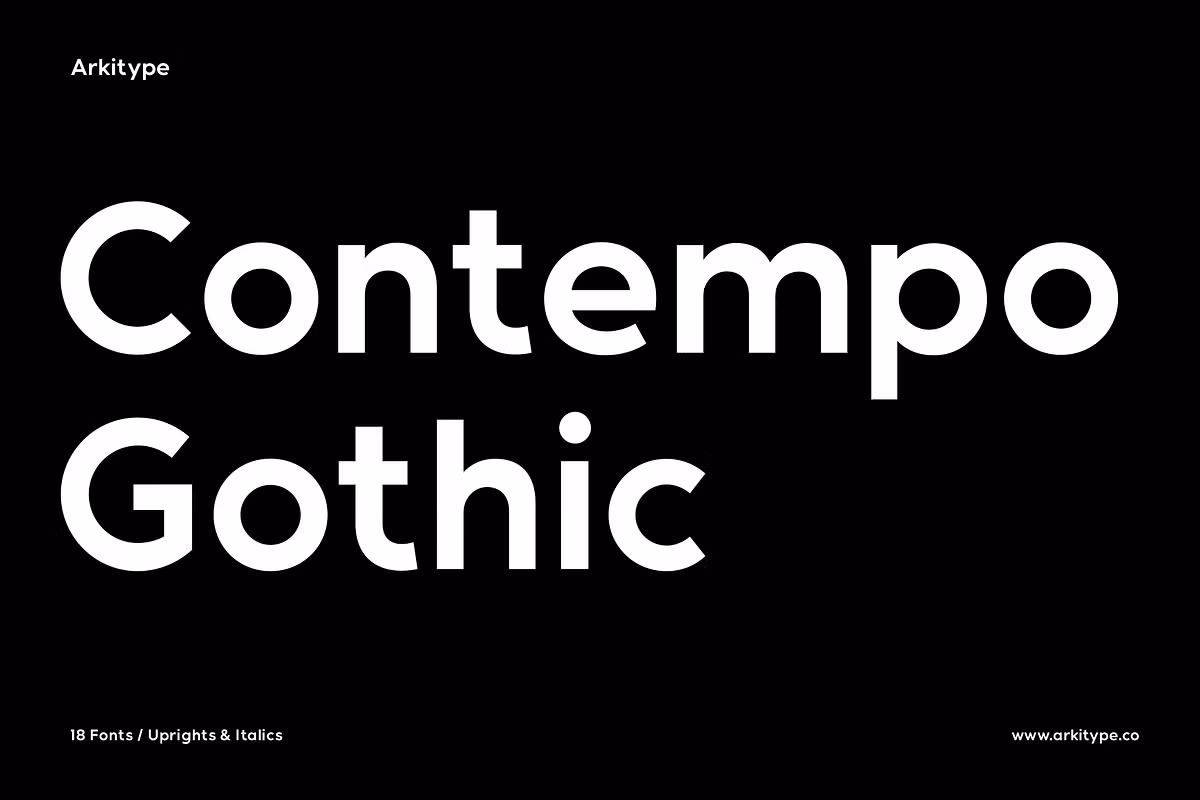
You must purchase this font for commercial use. However, you can download Contempo Gothic Font Family Free Download for testing purposes. Contempo Gothic is a sleek and modern font family that combines clean, geometric shapes with a contemporary design. Ideal for branding, logos, editorial layouts, websites, and professional marketing materials, this font family brings versatility and sophistication to your typography.
The Contempo Gothic Font Family includes a range of weights and styles, giving you the flexibility to create bold headlines, clean body text, and everything in between. Whether you're working on a tech brand, a creative agency, or an upscale product, this font family will elevate your designs with its modern, minimalist appeal.